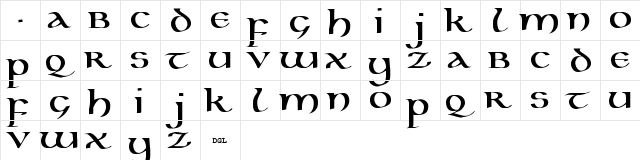
Kells1.02Ke Bold Font Preview
Kells1.02Ke Bold
Design Context for Kells1.02Ke Typeface
Kells1.02Ke is a composed and adaptable typeface that performs quietly and consistently across a wide range of design contexts. Its bold stroke weight gives it real presence on the page.